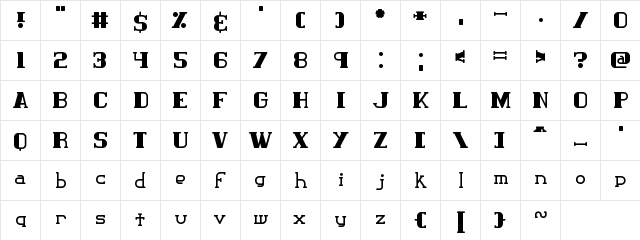
Classic Trash 1 BRK Regular
| Foundry | ƎIGMA FONTS |
| Designer | ƎIGMA FONTS - Brian Kent |
Design Context for Classic Trash 1 BRK Typeface
Classic Trash 1 BRK has the warm character of retro typography — evoking diners, record sleeves, and the golden age of print advertising.
Font Pairing: Combine Classic Trash 1 BRK with a simple slab or neutral sans — period-accurate companions reinforce the vintage feel without competing for attention.
Pro Tip: Lean into Classic Trash 1 BRK's period character by pairing it with aged paper textures, muted colour palettes, and vintage illustration styles.